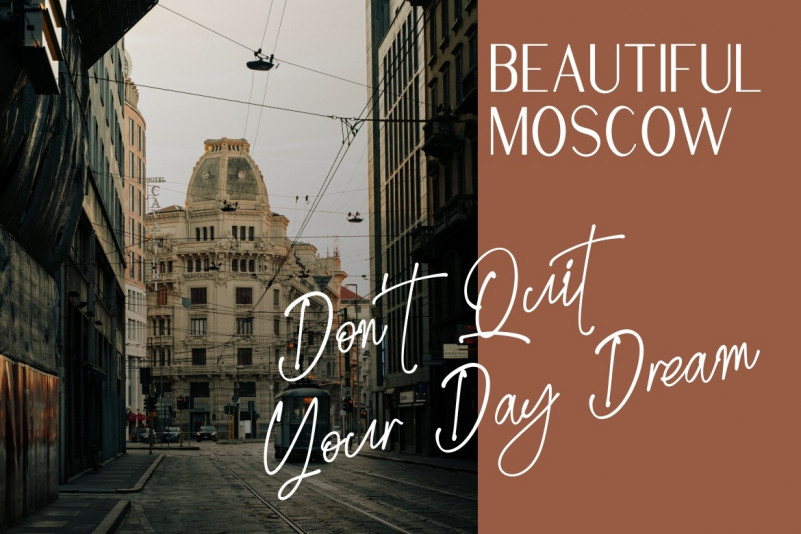
Golden Stanbury Font
Golden Stanbury Font Duo
This is a stunning duo font (handwritten and sans serif). Combine them for gorgeous design results! It’s designed and shared by HansCo. This font come with signature ballpoint style that give you a sleek, elegant look for your logos, business card, wedding invitations, quotes, advertisements, and more.